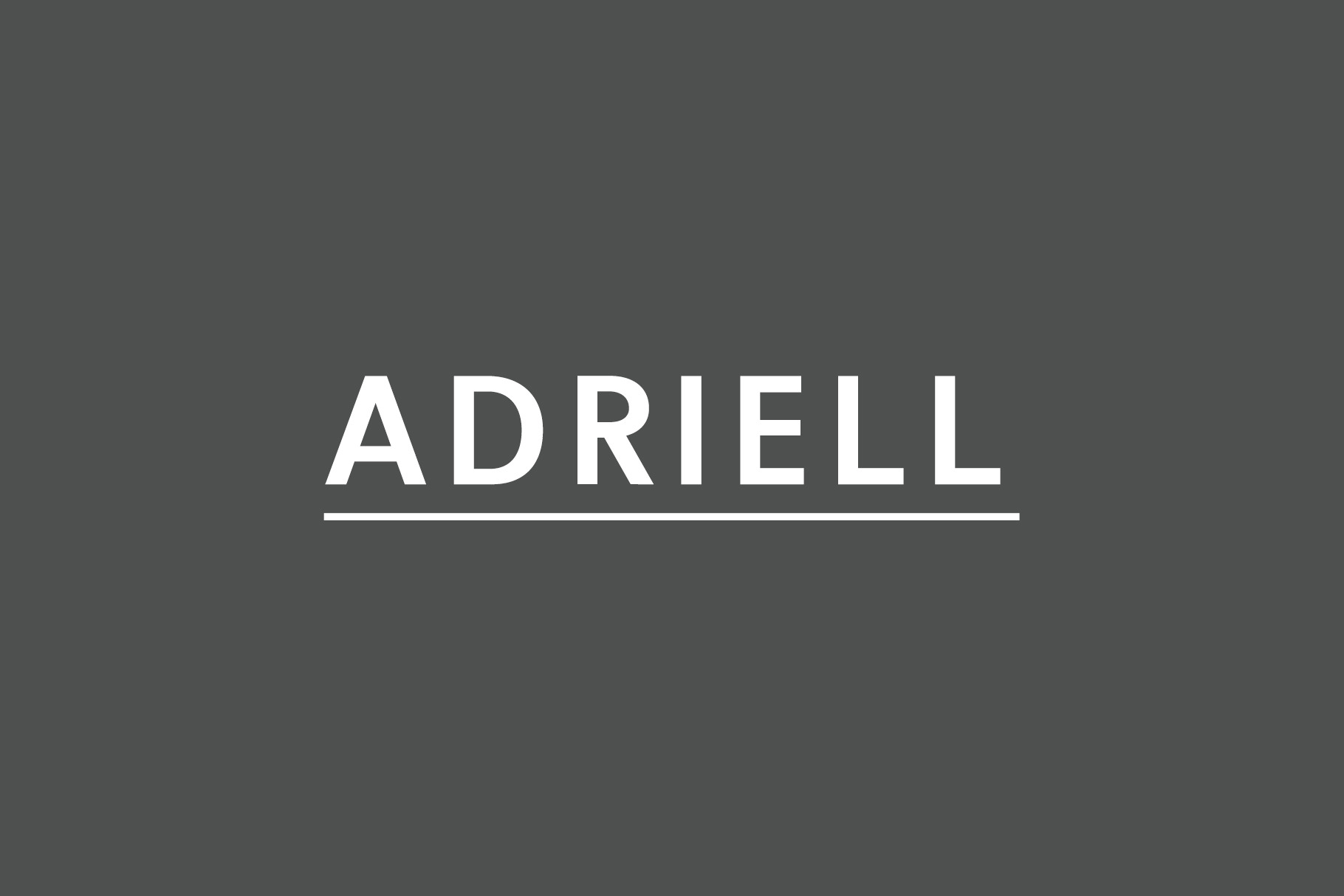
Adriell Sans Serif Fonts Family
Adriell Sans Serif Font Family is a simple yet clean serif font family. It comes in 5 weights. This font is perfect choice for minimal, decoration and magazine titles, quotes, short phrases, stationary, magazines, logotypes, headlines, banners, templates, and all sorts of advertising.
Included Features:
- Regular, Medium, Outline, Bold and Black Weights
Adriell Font Features:
- Uppercase Letters
- Lowercase Letters
- Non English Characters ( Latin Supplement + Latin Extended A)